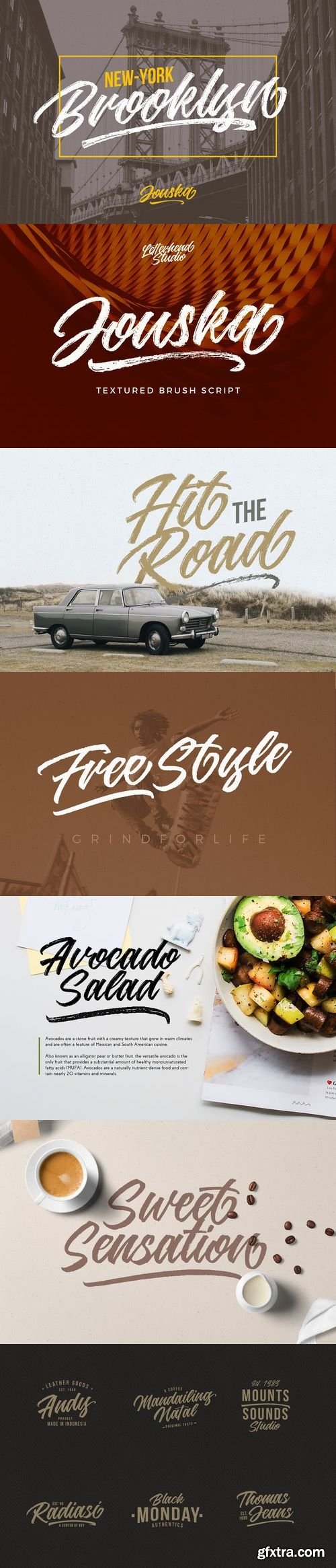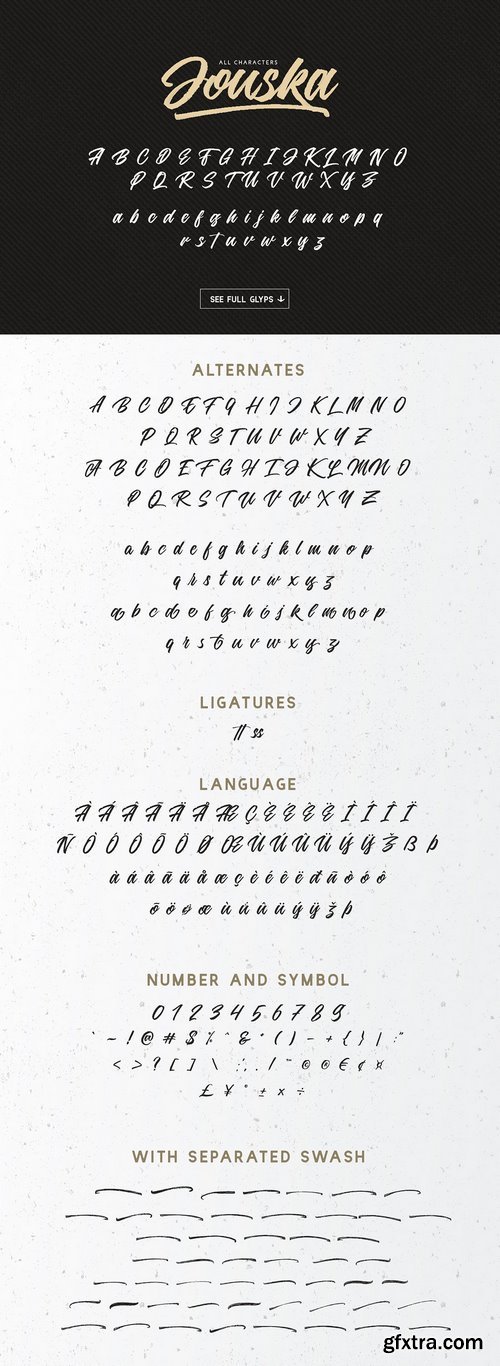
CM - Jouska Textured Brush Script 1406150
Introducing Jouska Textured Brush Script, a typeface which beautifully brushed manually by hand. The texture gives a gritty and grunge look yet the script style gives a natural and casual feel. Perfect combination to use for any design needs such as logotype / wordmark, badge, sign board, poster, headline text, apparel, wedding invitation, etc. This font comes with many opentype features like ligature, stylistic alternate, contextual alternate, swash, etc and support multi language.